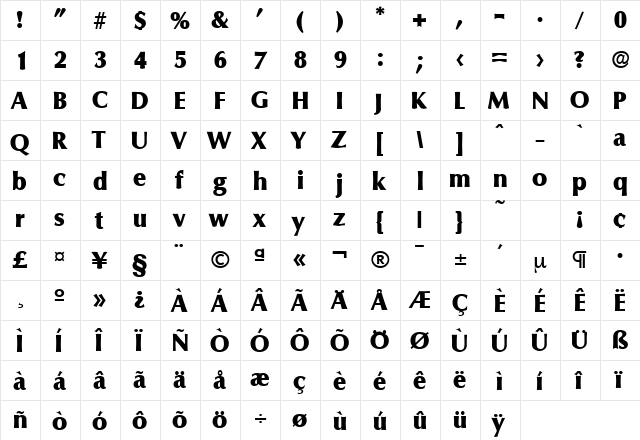
Columbia-Serial-Heavy Regular
Design Context for Columbia-Serial-Heavy Typeface
Columbia-Serial-Heavy is a composed and adaptable typeface that performs quietly and consistently across a wide range of design contexts.
Pro Tip: Use Columbia-Serial-Heavy in both headline and body roles to test its range before committing to a single application.